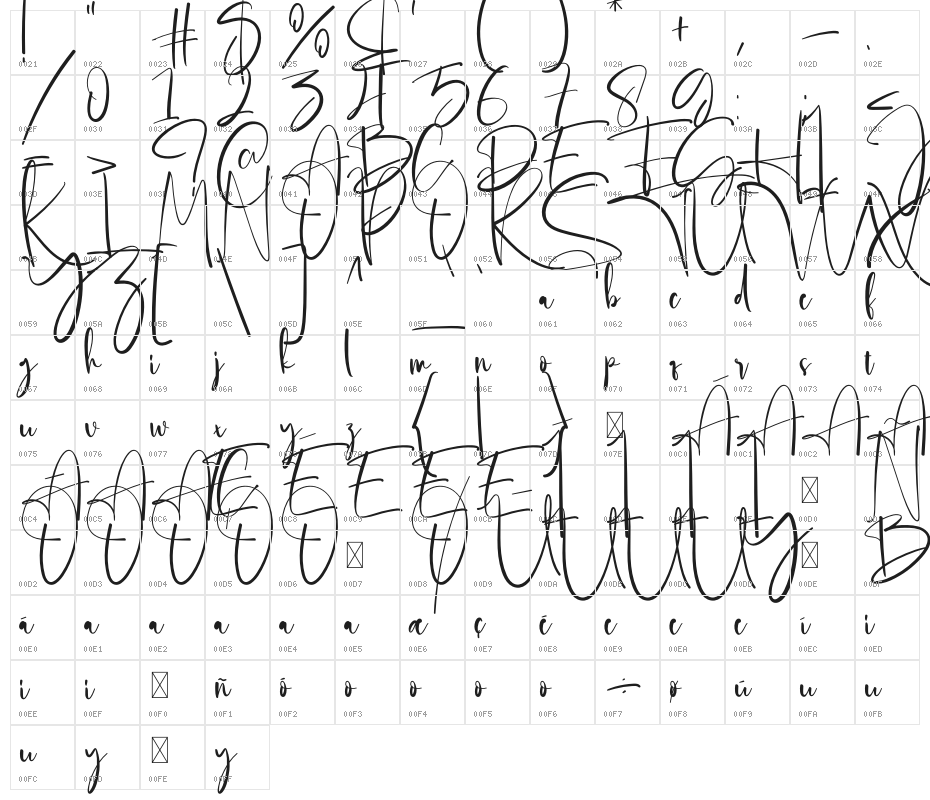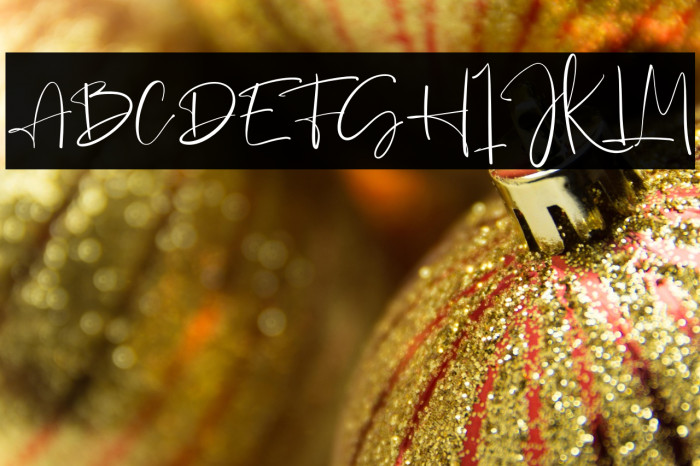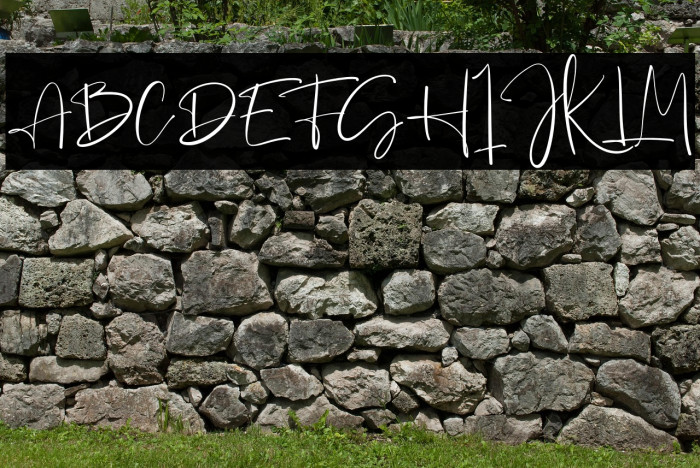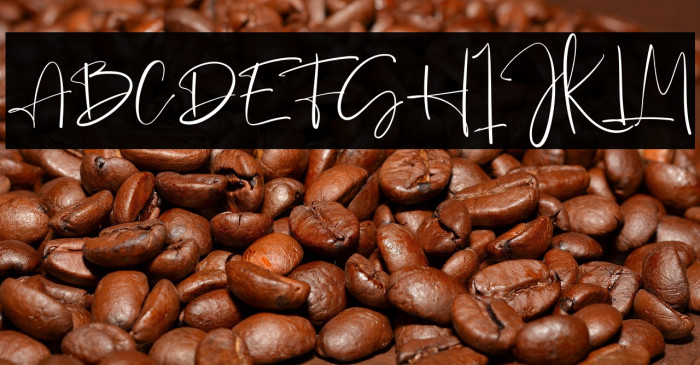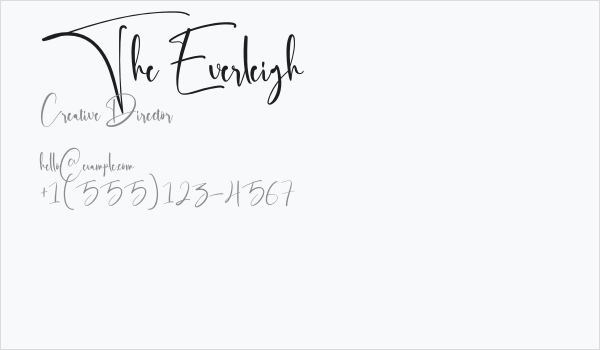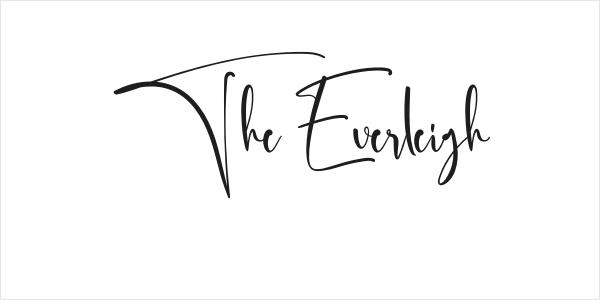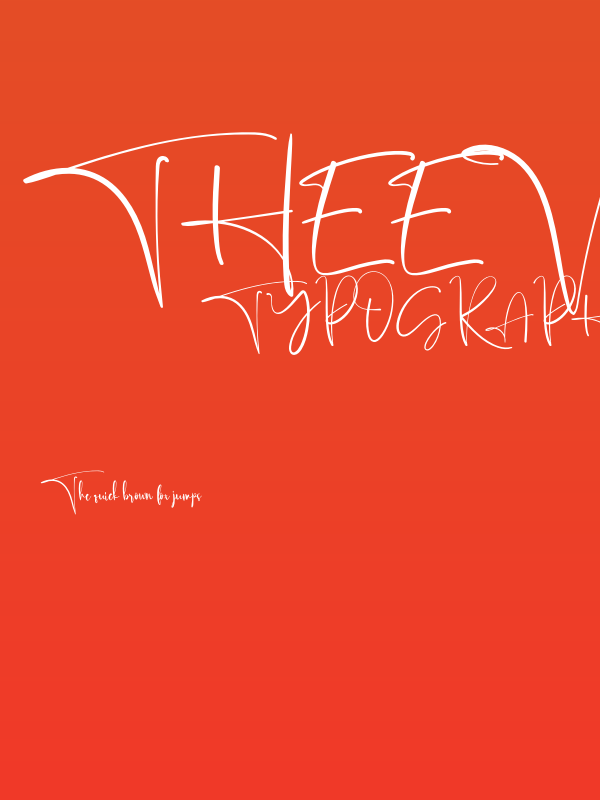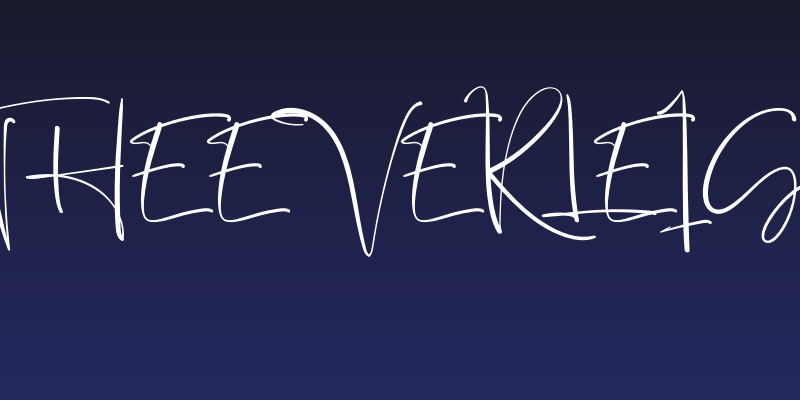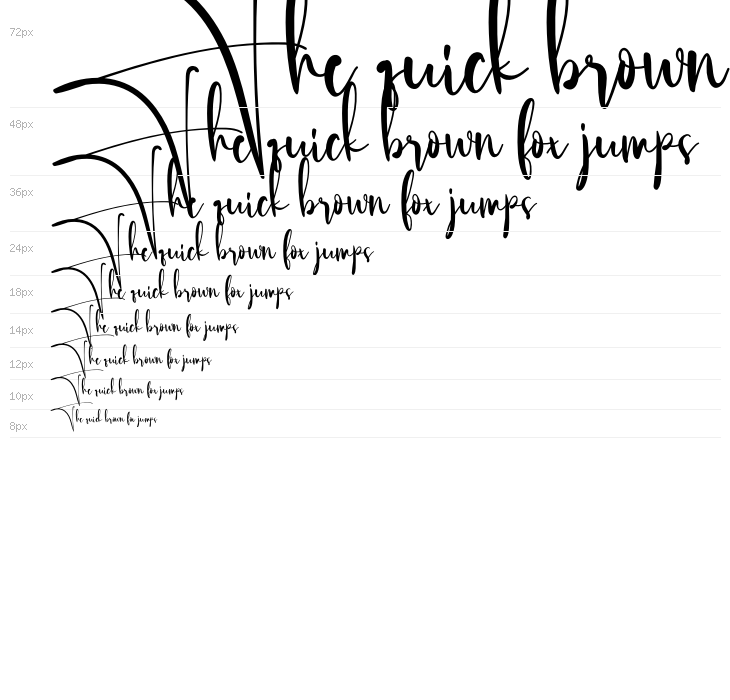
The Everleigh Font
The Everleigh Description
A playful and expressive handwritten script font with a casual and flowing style, featuring varying stroke widths and a dynamic, lively appearance.
| Proposed Projects | Greeting cards, invitations, personal branding. |